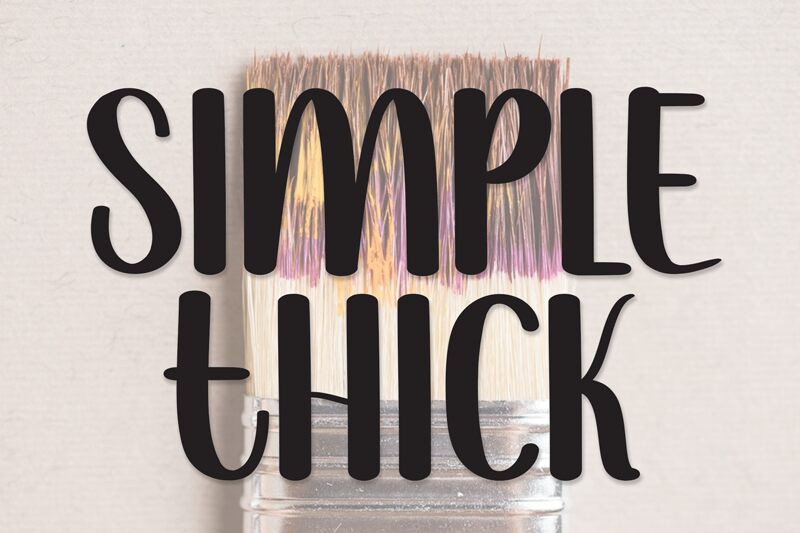
Simple Thick
Simple Thick is a bold, brush-style font that exudes a sense of rugged elegance. Designed by Andi Moz, this typeface boasts thick, expressive strokes that lend a dynamic, hand-crafted feel to any design.
The organic, slightly irregular edges add character and depth, while the overall boldness commands attention. Simple Thick shines in display applications, from eye-catching headlines and logos to impactful packaging and branding.
Its unique personality makes it a versatile choice, equally at home in modern, industrial-inspired designs as well as more rustic, artisanal aesthetics. With its striking visual impact and adaptable style, Simple Thick is a font that leaves a lasting impression.